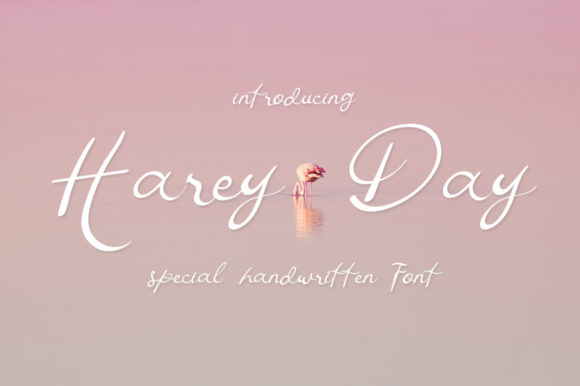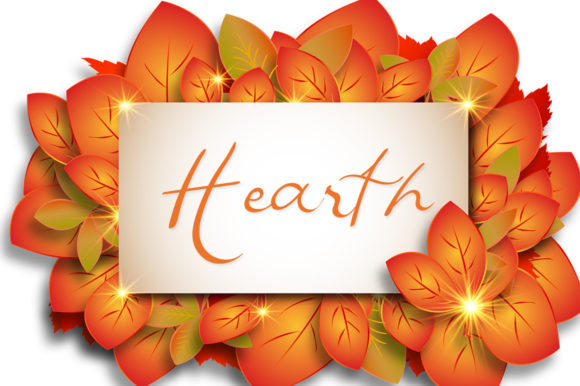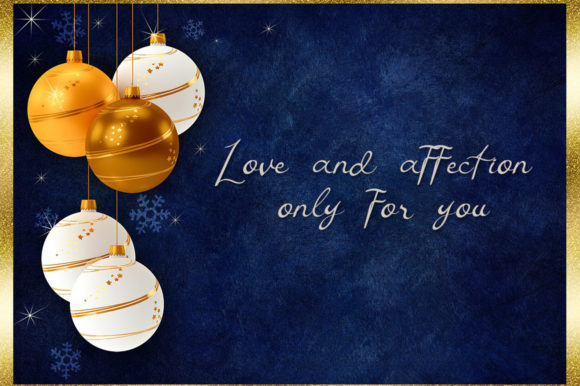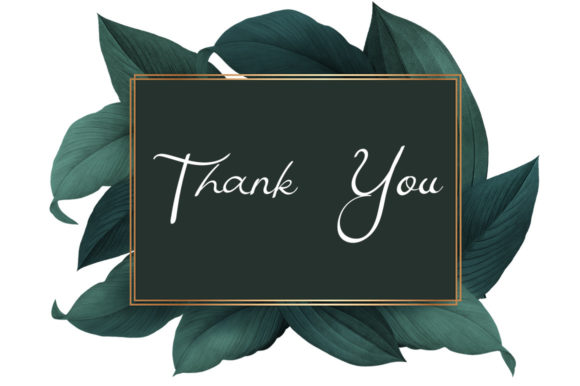
Harey Day Font
About Harey Day Font
Harey Day is a beautiful and sweet script font. It is fresh, clean, and elegant. This font will look amazing in a great number of projects, both formal and informal. It will add an incredibly joyful touch to your designs. By using this font, your business will look more beautiful!